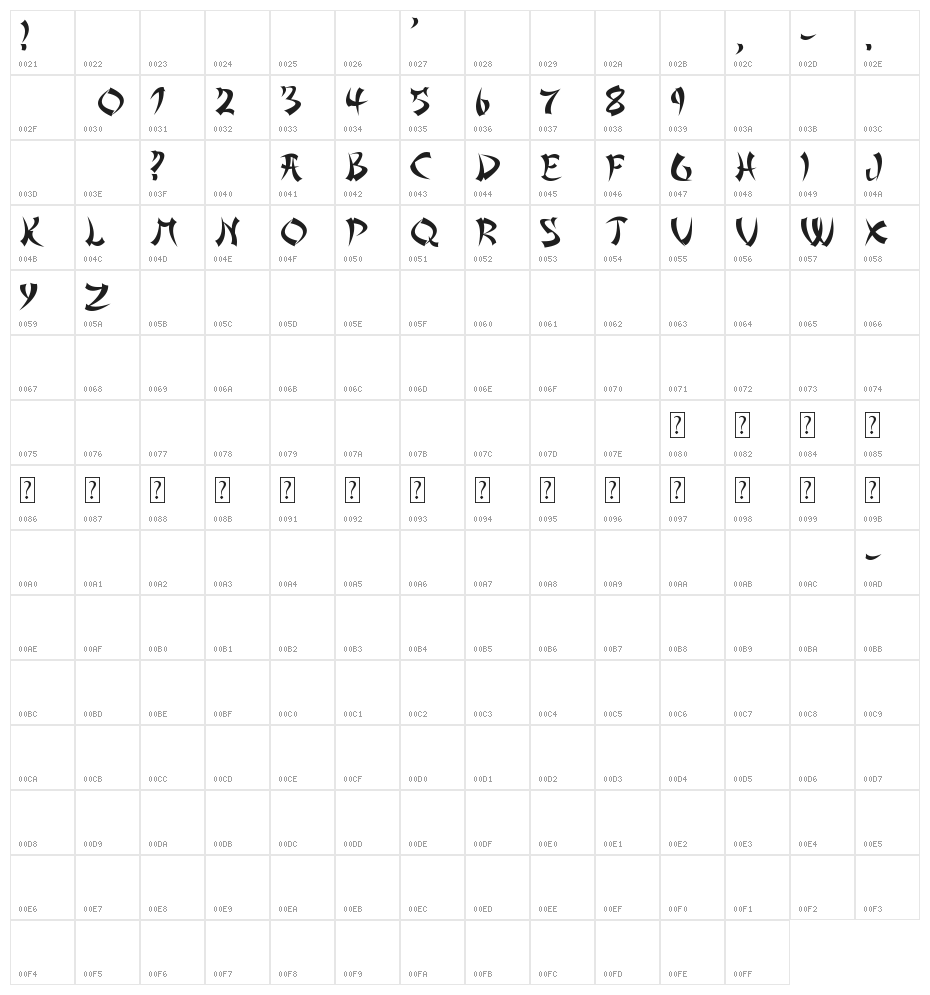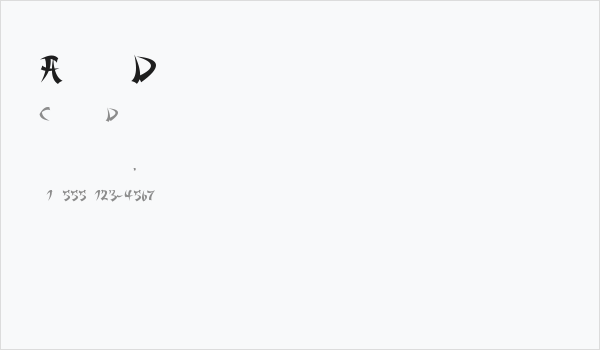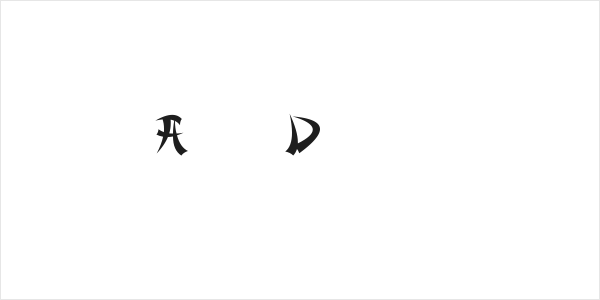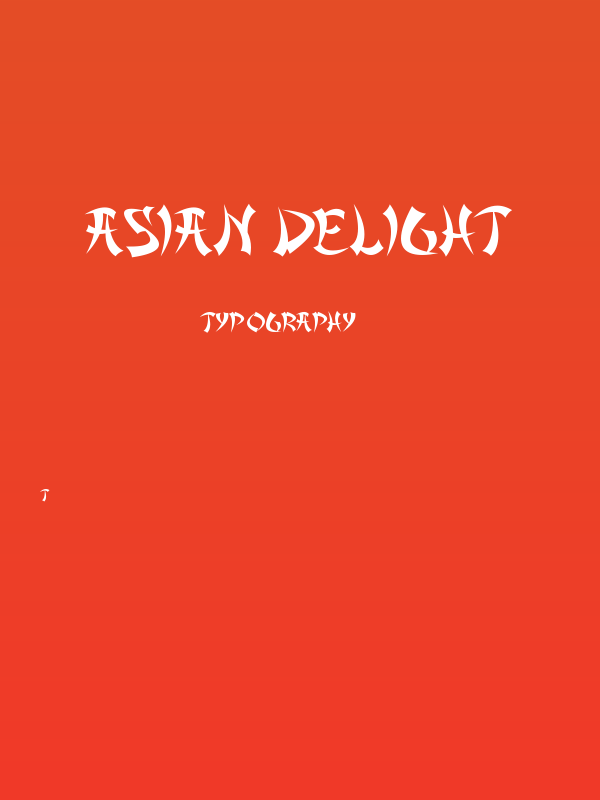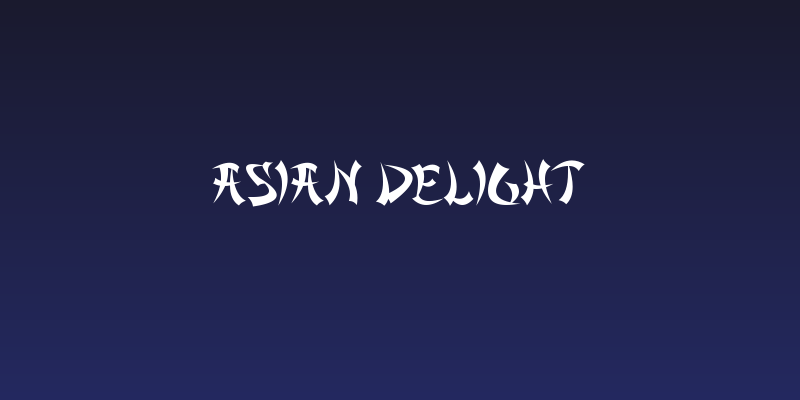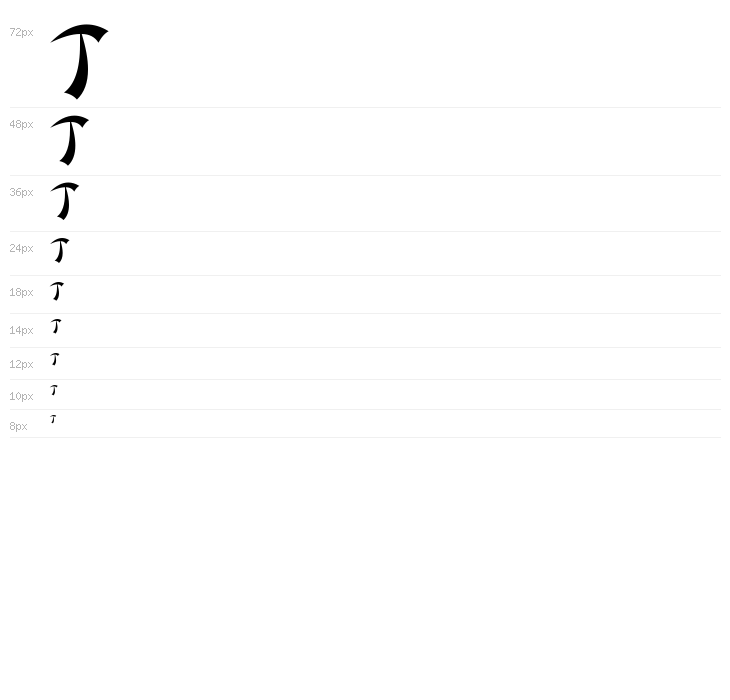
Asian Delight Font
Asian Delight Description
This font features a bold and dynamic design, characterized by sharp, angular strokes and a flowing, calligraphic style. The letters exhibit a distinct flair, with exaggerated curves and pointed edges that give it an energetic and artistic appearance. The uppercase letters are particularly striking, with each character having a unique form that maintains consistency across the alphabet. The numbers and special characters follow the same stylistic approach, ensuring a cohesive look. This font's design is reminiscent of traditional Asian calligraphy, yet it maintains a modern twist, making it suitable for contemporary applications.
| Use Case | Logos, Headlines, Posters |
| Proposed Projects | Ideal for projects requiring an artistic touch, such as posters, logos, or branding for creative industries. |